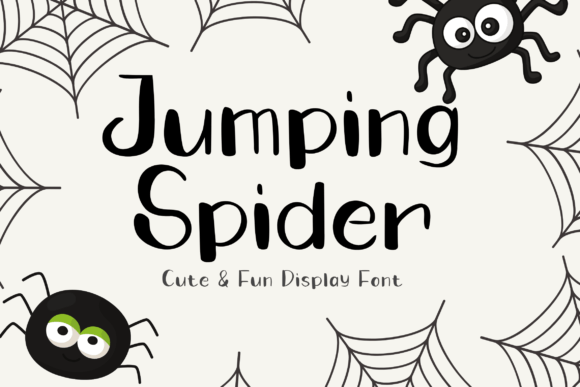
Buckle up for a thrilling ride into the realm of Jumping Spider Font, a display font family that will cast a spell on your designs. Brimming with cuteness and charm, this font dances off the page, ready to add a touch of magic to your creative endeavors.
Picture this: a captivating Halloween poster that leaps off the page, inviting trick-or-treaters from far and wide. The Jumping Spider Font weaves its web of enchantment, ensnaring them with its playful spirit and infectious energy. From the moment they lay eyes on your poster, they're drawn into a world of imagination and wonder.
But this font's magic isn't limited to Halloween. Its versatility knows no bounds. It's the perfect font for adding a splash of whimsy to birthday cards, transforming social media posts into vibrant expressions of joy, and crafting YouTube thumbnails that pop with personality. Whether you're a seasoned designer or just starting, the Jumping Spider Font is your secret weapon to create designs that leave a lasting impression.
Logos, branding, advertisements—you name it, this font conquers all. Its bold and playful strokes command attention, ensuring your message cuts through the noise and reaches your target audience like a bolt of lightning. With the Jumping Spider Font as your ally, you'll create designs that resonate, designs that connect, and designs that leave an unforgettable mark.
So, why settle for ordinary when you can embrace the extraordinary? Join the ranks of creative visionaries who have harnessed the power of the Jumping Spider Font to captivate audiences and turn their design dreams into reality. Take the leap today and let your creativity soar to new heights.